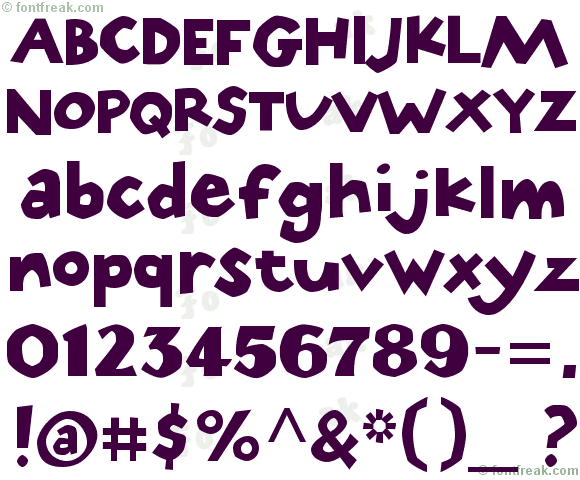
Stone Hinge
About Stone Hinge
The Stone Hinge font by Typadelic Fonts is a captivating display typeface that embodies a unique blend of rustic charm and modern flair. This decorative font features bold, thick strokes that evoke the solidity of stone structures, with a slightly uneven texture that adds a hand-crafted feel. The playful yet sturdy design incorporates rounded edges, creating a sense of warmth and approachability. The letterforms are well-spaced, ensuring clarity while maintaining a distinctive character that stands out in any design project.
Ideal for a variety of creative applications, the Stone Hinge font shines in contexts such as wedding invitations, where its unique style can enhance the theme of love and celebration. It is also perfect for movie posters, particularly in genres that lean towards adventure or fantasy, as its bold presence captures attention effortlessly. Additionally, this font is well-suited for restaurant menus, allowing establishments to present their offerings with a touch of personality. Graphic designers and content creators will find it especially valuable for branding projects that require a memorable and engaging visual identity.
The target audience for the Stone Hinge font includes graphic designers looking to infuse their projects with a unique flair, small business owners aiming to create eye-catching branding, and content creators seeking to make their visuals more impactful.
What makes the Stone Hinge font truly stand out is its ability to blend artistic expression with functional design. With its free availability, the Stone Hinge font free download offers a fantastic opportunity for creatives to enhance their work with a font that is both visually striking and versatile. Whether used in print or digital media, this font is sure to leave a lasting impression.